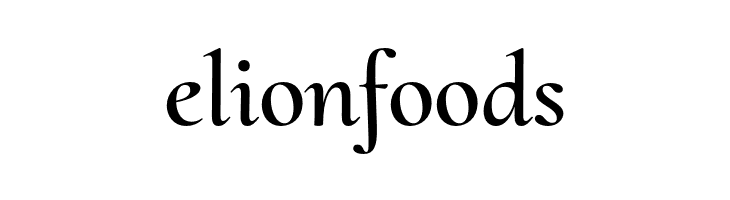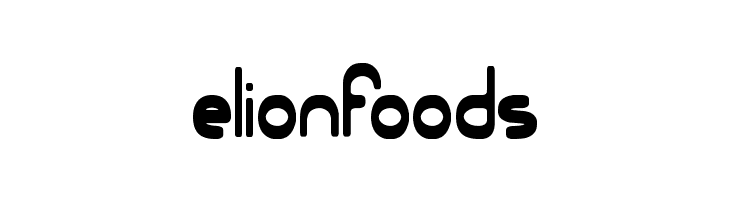
A classic serif font with elegant lines and refined style.
A classic serif font with elegant strokes and a refined, modern appearance.
A sophisticated serif font with a unique unicase design and balanced proportions.
A classic semi-italic font with elegant curves and medium contrast, perfect for sophisticated designs.
A classic serif font with elegant, refined letterforms and a modern twist.
A futuristic and abstract font with circular and radial elements, ideal for modern designs.
A bold, rounded font with a playful and approachable design.
A rounded, modern font with consistent stroke thickness and smooth curves.
An elegant, high-contrast extended italic font with a classic and sophisticated style.
A bold, extended serif font with high contrast and elegant details.